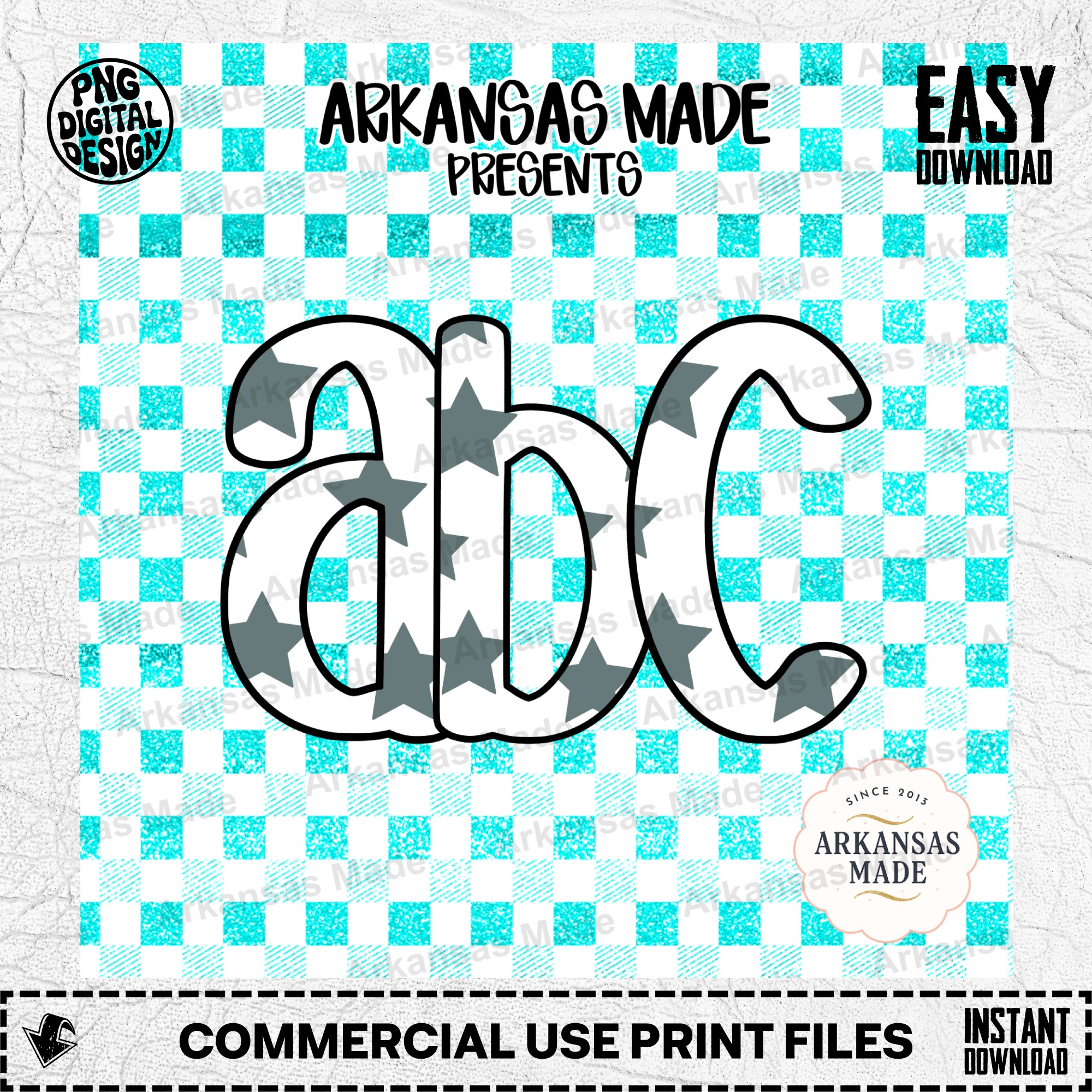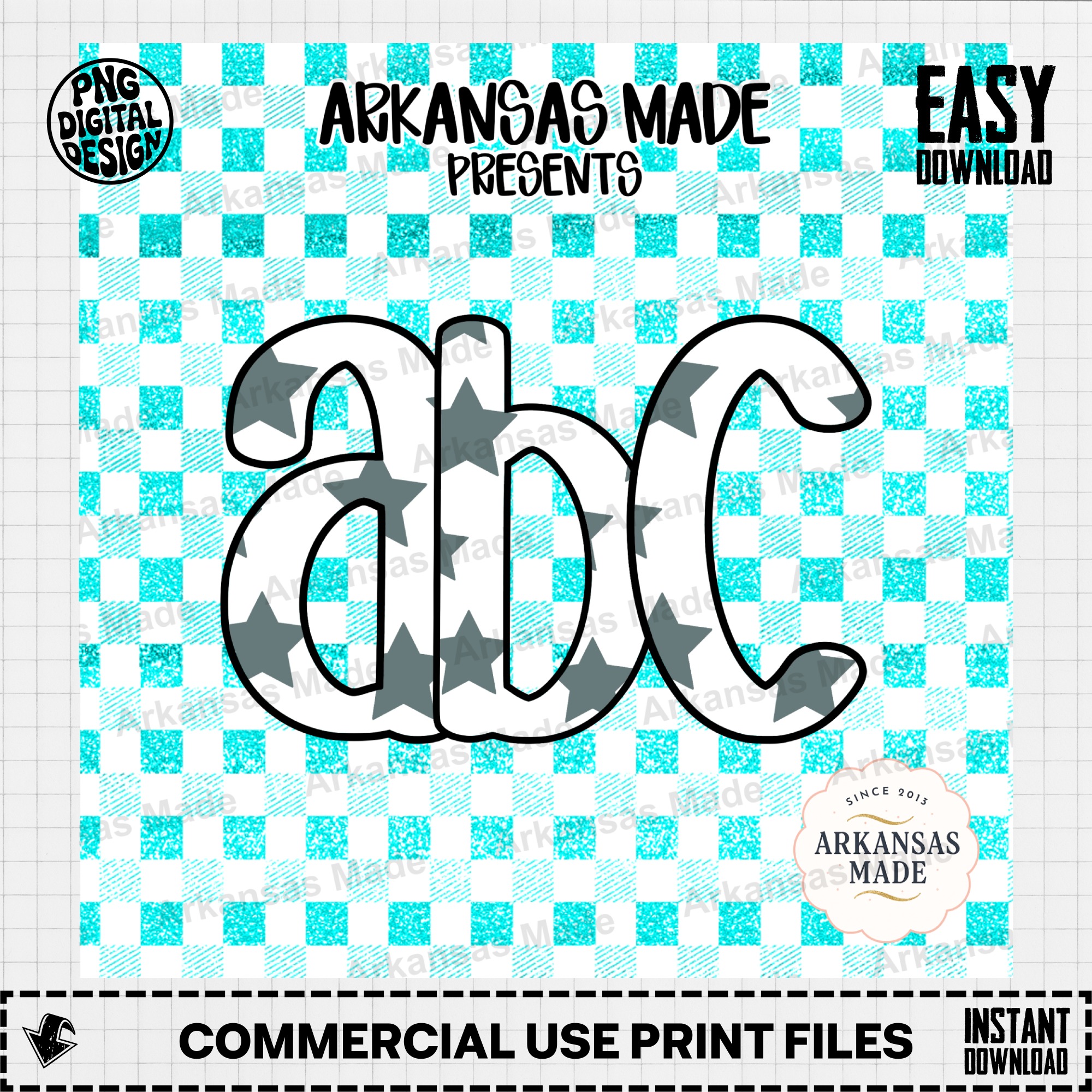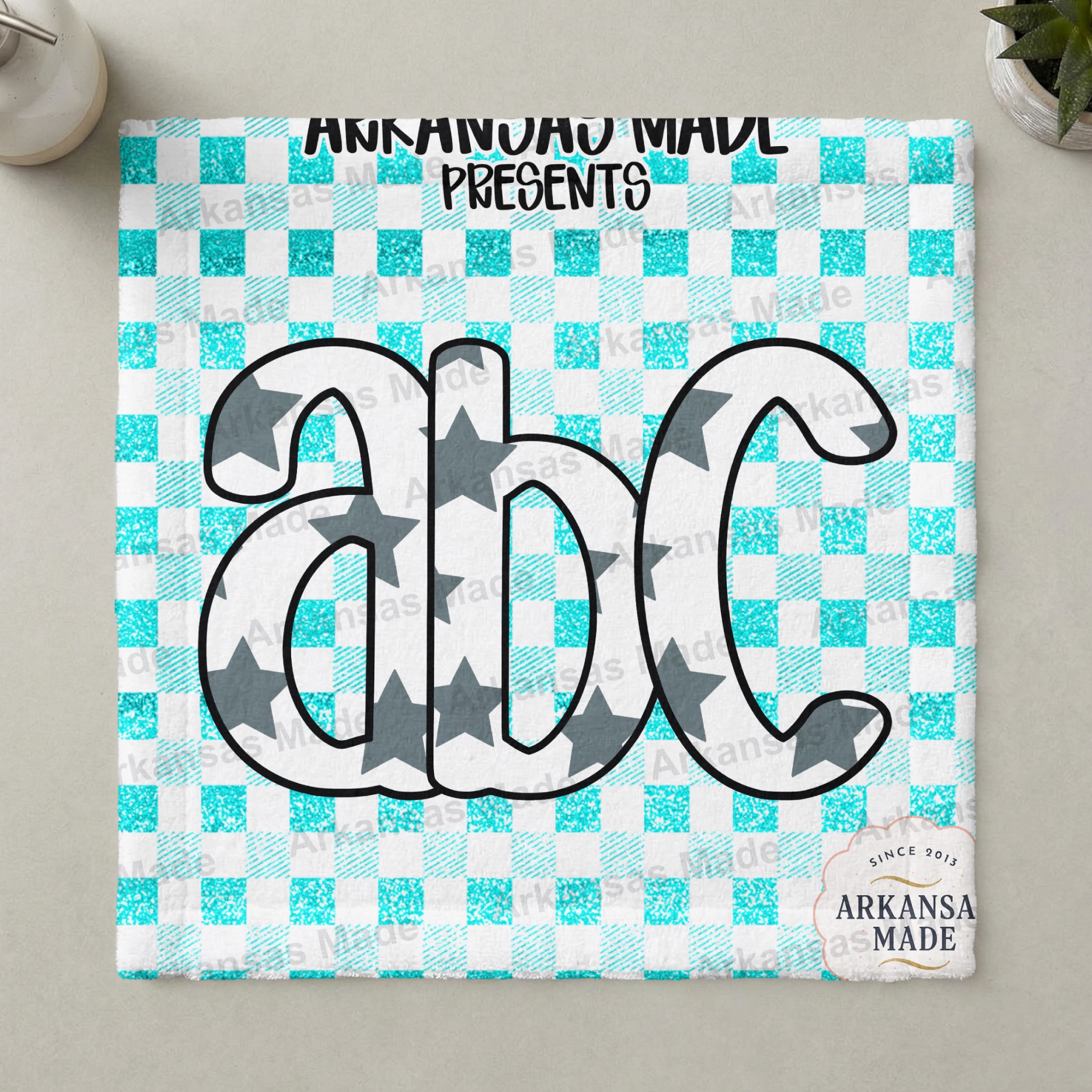
Elevate your DIY projects with this vibrant Teal Star Gingham ABC Alpha Set Digital Download, featuring faux glitter and stripe effects for crafting fun! This playful alphabet font brings a cheerful and unique touch to any personalized creation. Perfect for adding a festive or patriotic flair, its charming design is ready to spark your imagination. Ideal for crafters, digital designers, and parents, this versatile digital download is excellent for creating bespoke baby shower decor, nursery art, custom party invitations, teacher appreciation gifts, or unique gifts for creative friends.